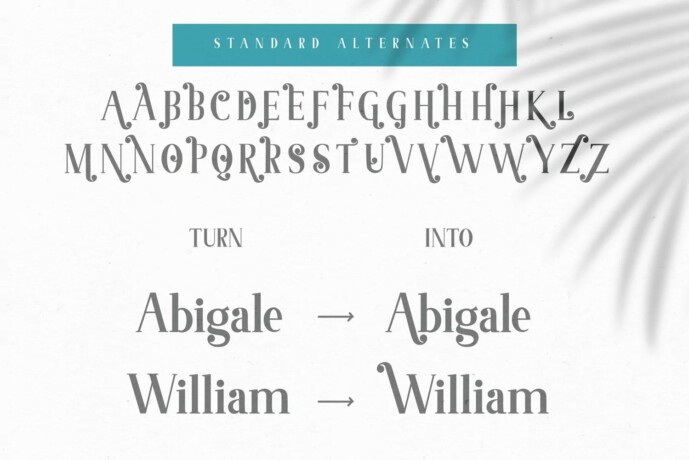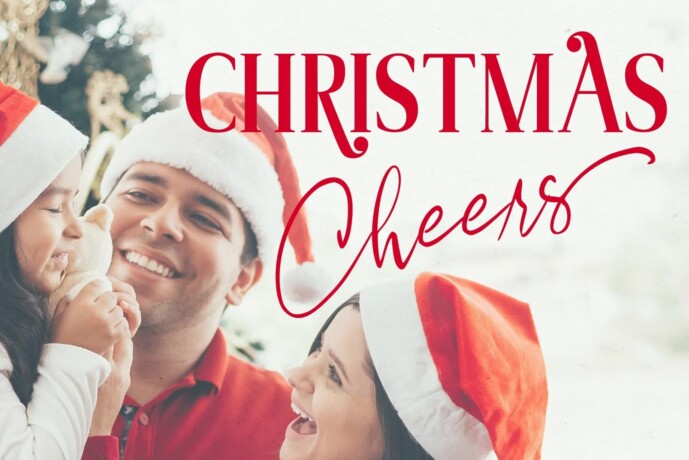
Abigale Font Duo
Designer: Tu Neuwin
Abigale Font Duo Set. I wanted to create a font set that’s classic yet modern. Something versatile that can be use for any Holidays be it Christmas, Halloween, Easter to any special occasions, wedding, birthday, graduations, etc.